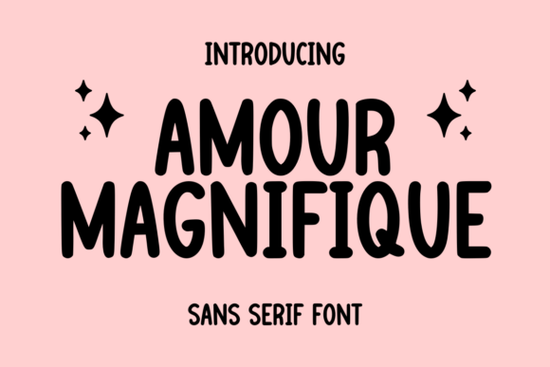
Amour Magnifique Font is a fun, cute handwritten sans serif typeface that works across a surprising number of creative projects. If you've been searching for a font that feels friendly and approachable without looking messy, this one deserves a spot on your shortlist. It has that sweet, casual charm that makes greeting cards feel personal and digital designs feel warm all while staying clean and legible.
What kind of projects does Amour Magnifique Font work best for?
This font was clearly designed with versatility in mind. Its handwritten style sits in that sweet spot between playful and polished, which means you can use it in both casual and semi-professional contexts without it feeling out of place.
Here are some project types where it fits naturally:
- Greeting cards birthday cards, thank-you notes, Valentine's Day designs, and holiday greetings
- Digital invitations baby showers, weddings, brunches, or party invites
- Social media graphics Instagram quotes, Pinterest pins, story templates
- Print-on-demand products mugs, tote bags, t-shirts, stickers
- Presentation slides adding personality to headers or section titles
- Crafting projects Cricut and Silhouette designs, scrapbooking, vinyl decals
The handwritten sans serif style keeps things readable even at smaller sizes, which is a real advantage if you're designing for products like stickers or labels where space is limited.
How does Amour Magnifique compare to other handwritten fonts?
There are plenty of handwritten fonts out there, but not all of them strike the right balance between charm and clarity. Some lean too far into the "messy scrawl" territory, while others feel stiff and lose that hand-drawn warmth.
Amour Magnifique sits comfortably in the middle. If you like the sweet, rounded letterforms in playful bakery-style typefaces, you'll probably enjoy the energy this font brings. On the other hand, if you want something with a bit more European flair, the Bourgueil Font has a slightly more refined handwritten look that works well for wine labels, boutique branding, and elegant packaging.
For projects that need a completely different vibe something more structured and modern you might look at Paris Treat Font, which delivers a clean sans serif style with a touch of sophistication. And if you're working on something bold and military-inspired, the Stencil Army Font offers a rugged stencil aesthetic that's hard to beat for themed designs.
Is this font a good choice for print-on-demand sellers?
Absolutely. If you sell on platforms like Etsy, Redbubble, or Merch by Amazon, you know how important it is to have fonts that feel current without being trendy to the point of going stale quickly. This sweet handwritten typeface has that timeless cute factor that buyers respond to, especially in niches like:
- Mom and baby products
- Romantic and couple-themed designs
- Faith and inspirational quotes
- Teacher and classroom gifts
- Friendship and appreciation themes
Because it's a sans serif font at its core, it reproduces cleanly on physical products. No thin serifs to disappear on a printed mug or fuzzy lettering on a small sticker. That practical detail matters more than most people realize until they've wasted a batch of prints.
Can I use it for branding and business materials?
It depends on the brand. If your business has a warm, approachable personality think bakery, florist, handmade goods shop, children's boutique then yes, this font can work beautifully for logo concepts, packaging headers, and marketing materials.
However, it's probably not the right fit for corporate or formal branding. For those situations, a more traditional sans serif or serif option would serve you better. The key is matching the font's personality to your brand's personality. When those align, the design feels authentic. When they don't, even a great font can feel off.